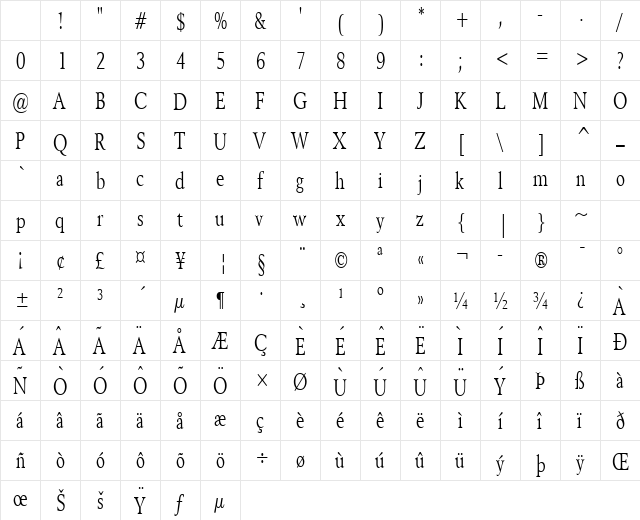
Complete Revive 8 Thin Normal glyph index. Displaying only characters natively supported by Revive 8 Thin Normal font.
Revive 8 Thin is a composed and adaptable typeface that performs quietly and consistently across a wide range of design contexts. Its slender proportions lend an understated elegance to any composition.